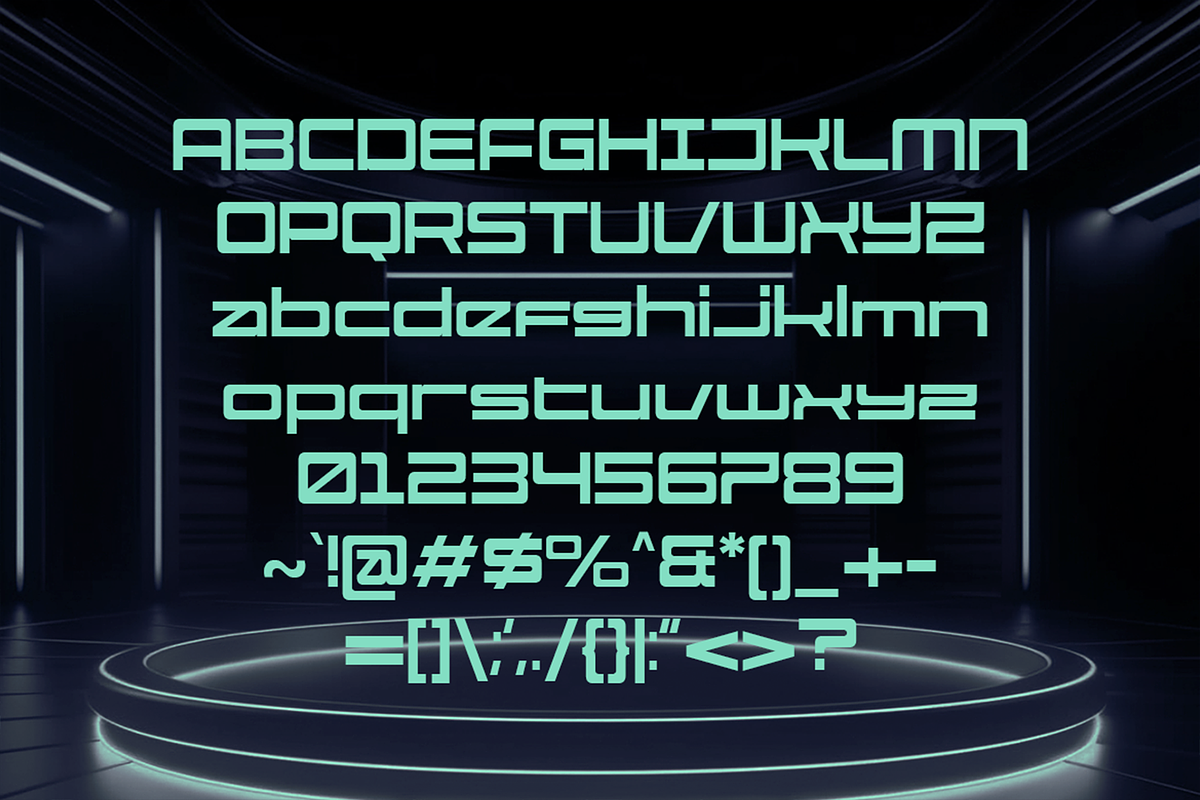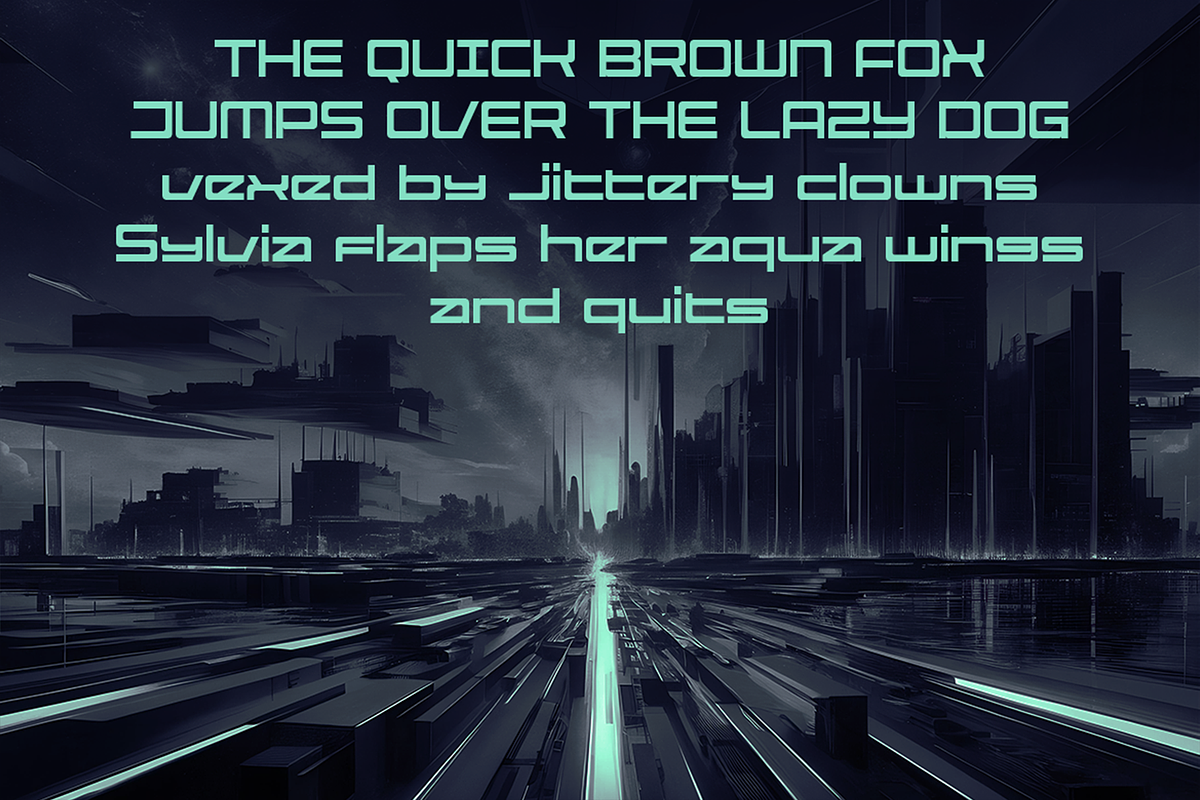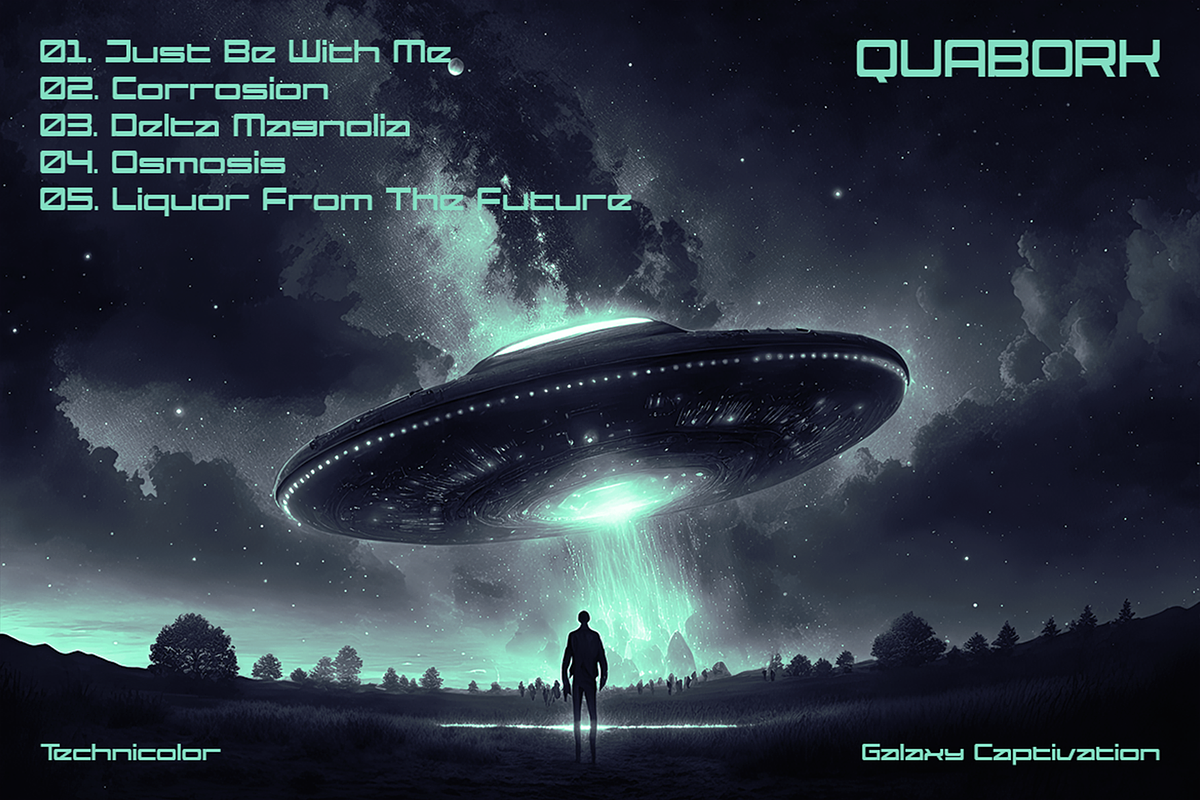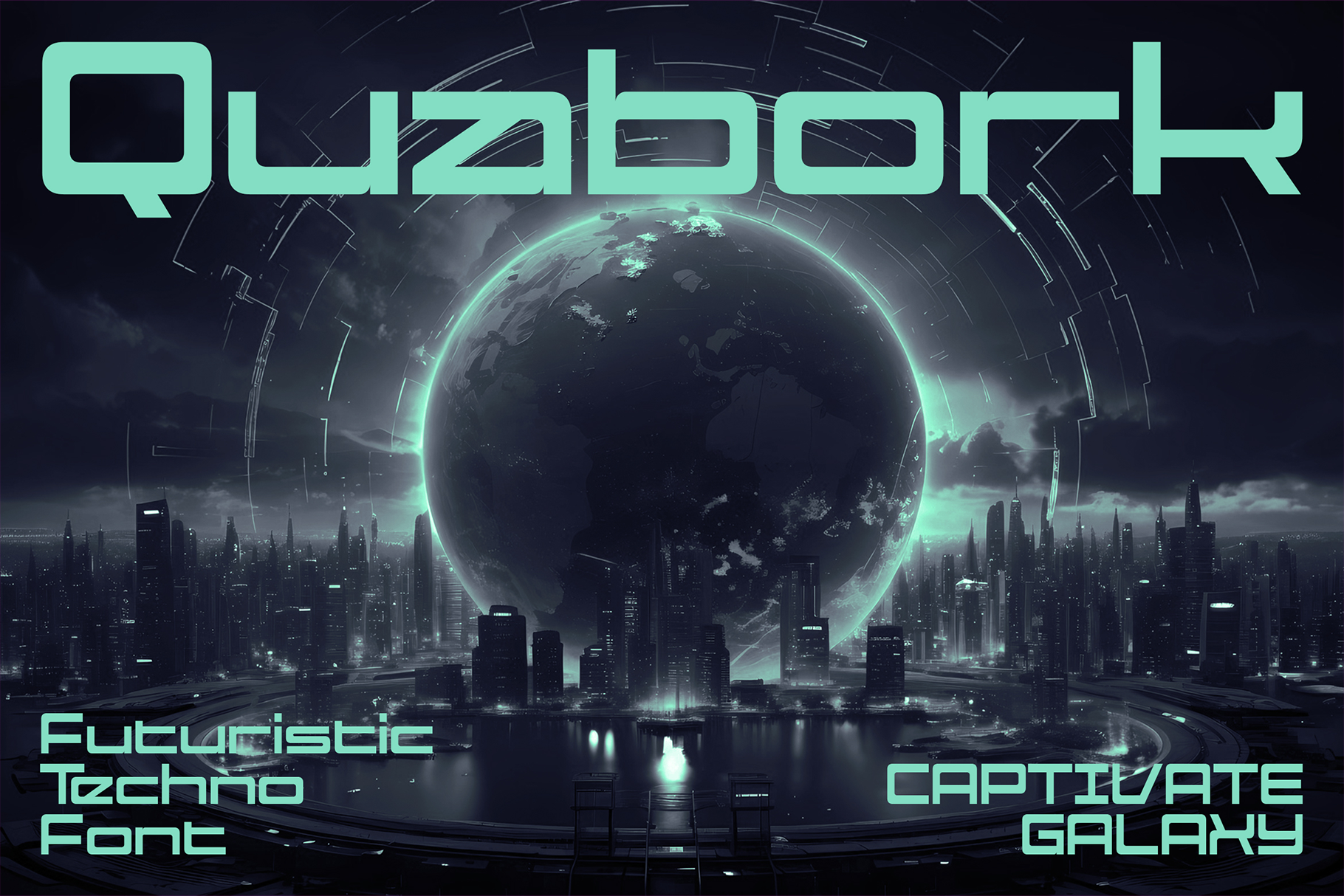
Quabork - Futuristic Square Fonts
Jack into the Future with Quabork: Square Techno Fonts!
The year is 30XX. Neon lights pulse. Bass thumps like a heartbeat. You're in the heart of a retro-futuristic gaming arcade, fingers flying over a controller, eyes locked on a screen ablaze with pixelated glory.
This is the world of Quabork Fonts.
Quabork isn't just another font; it's a portal to a neon-drenched future. Built for precision and dripping with galaxy energy.